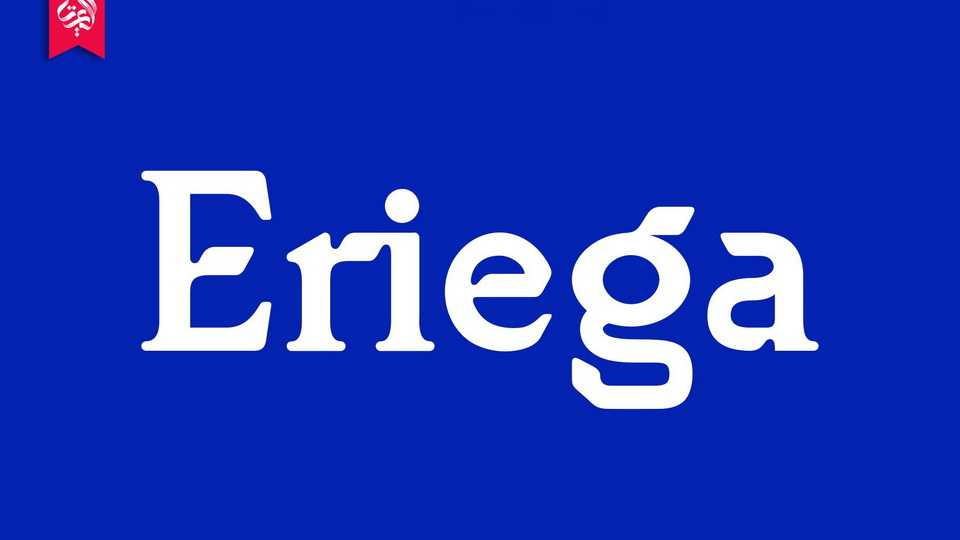
Eriega Font › Fontesk
Download Eriega font, a modern tech display typeface that unites the enthusiasm and technology. Eriega is a simple, modern, futuristic font that can be applied to many areas of design.
Designer: Aluyeah Studio